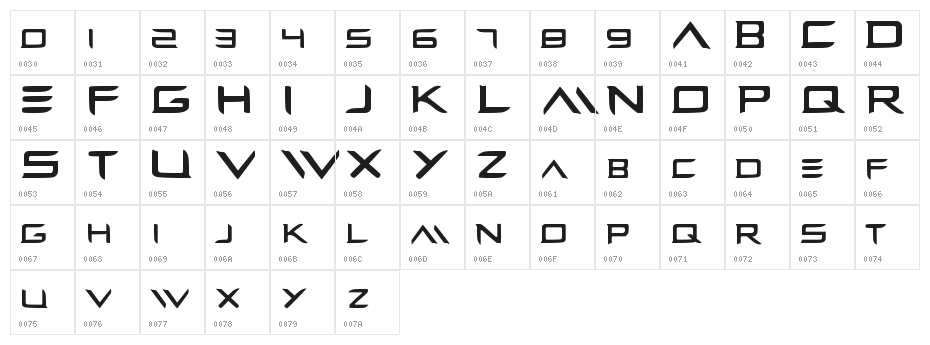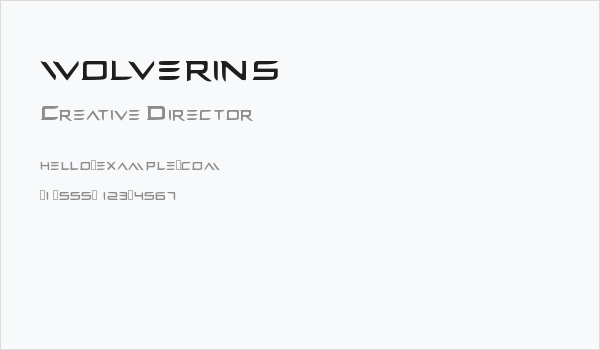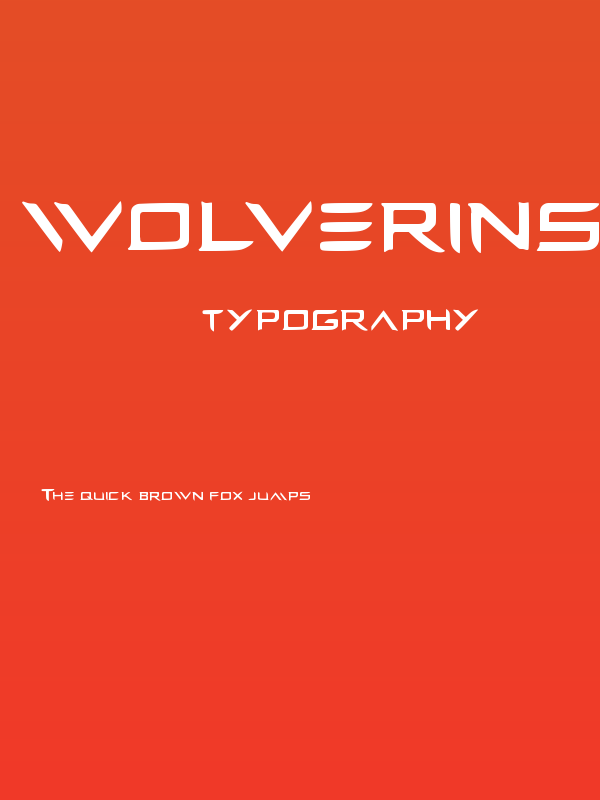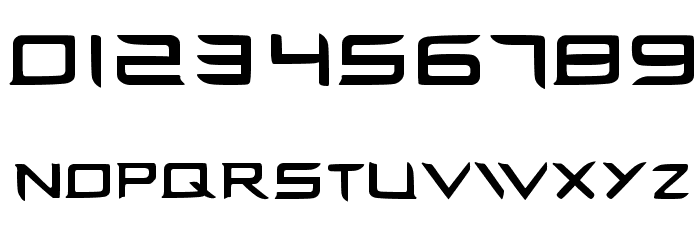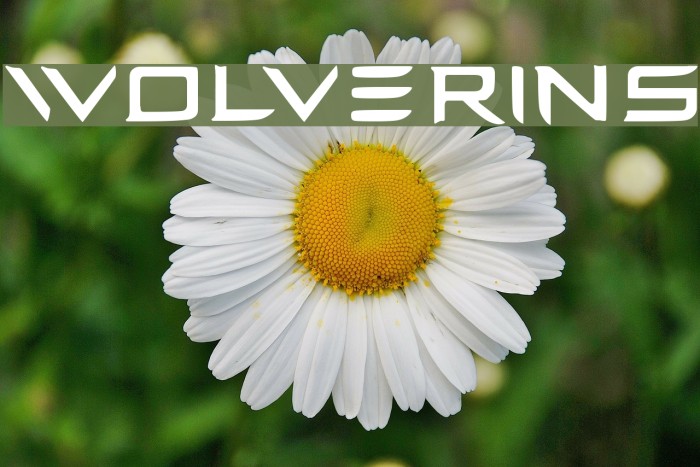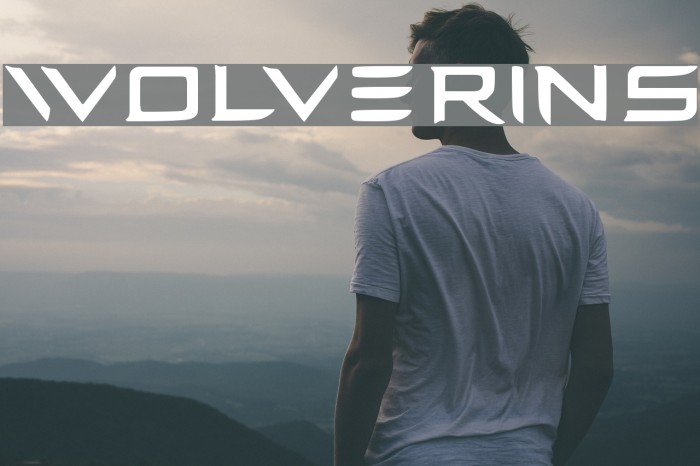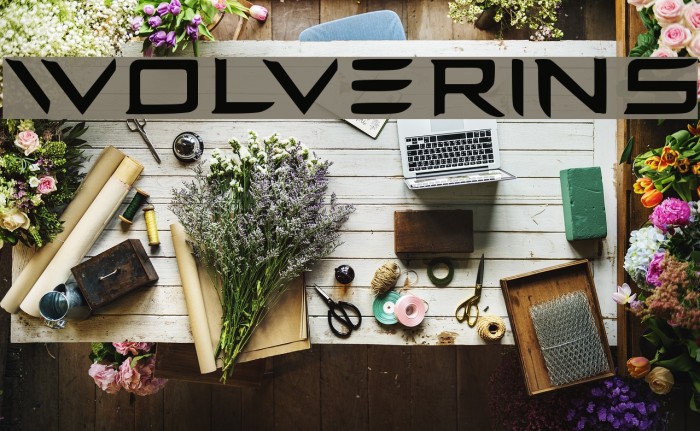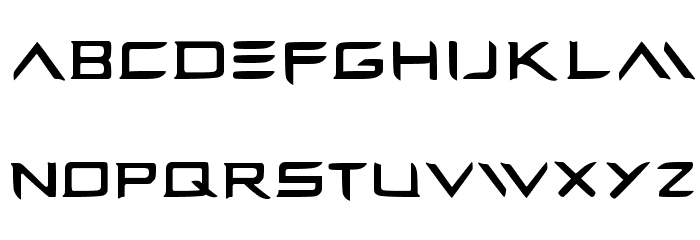
wolverins Font
wolverins Description
This font features a futuristic and angular design, characterized by sharp edges and geometric forms. The uppercase letters have a distinct, bold appearance with unique cutouts and slashes that give them a dynamic and modern look. The lowercase letters maintain the same angular style, ensuring consistency throughout the typeface. The numbers are equally stylized, with a sleek and innovative design that complements the overall aesthetic. This font is ideal for projects that require a contemporary and edgy feel, making it suitable for technology-related branding, sci-fi themes, and modern digital interfaces.
| Use Case | Logos, Headlines |
| Proposed Projects | Ideal for technology branding, sci-fi themes, and modern digital interfaces. |